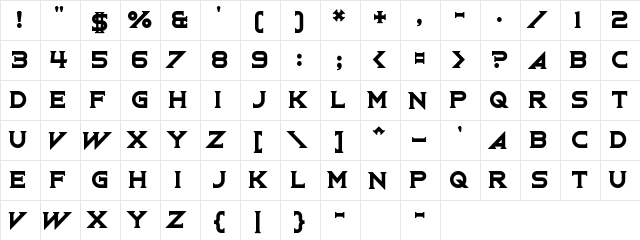
Oxen Crossbow Regular
| Designer | NAL |
Design Context for Oxen Crossbow Typeface
Oxen Crossbow takes a measured approach to typography — its balanced proportions and neutral character make it a reliable workhorse for both digital and print work.